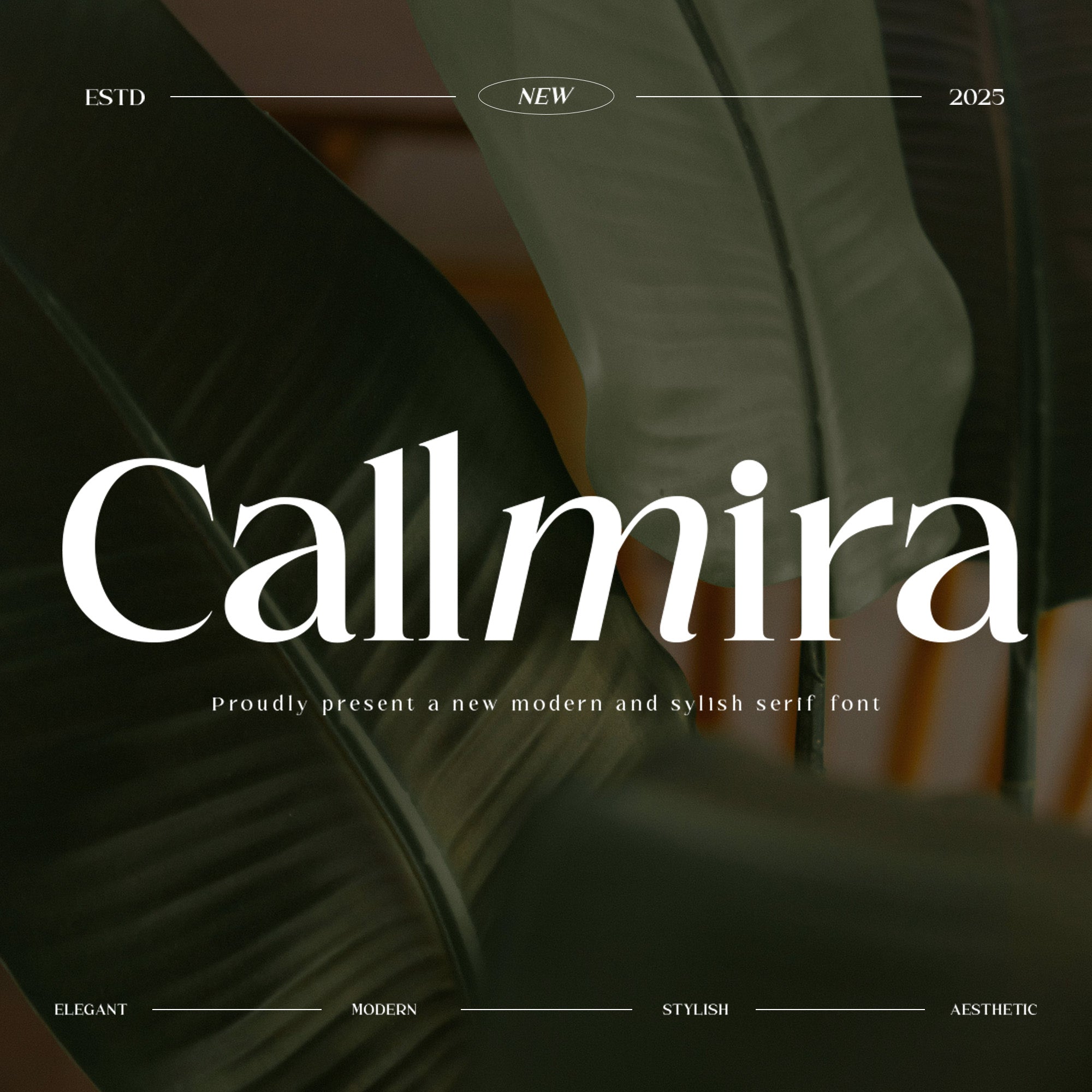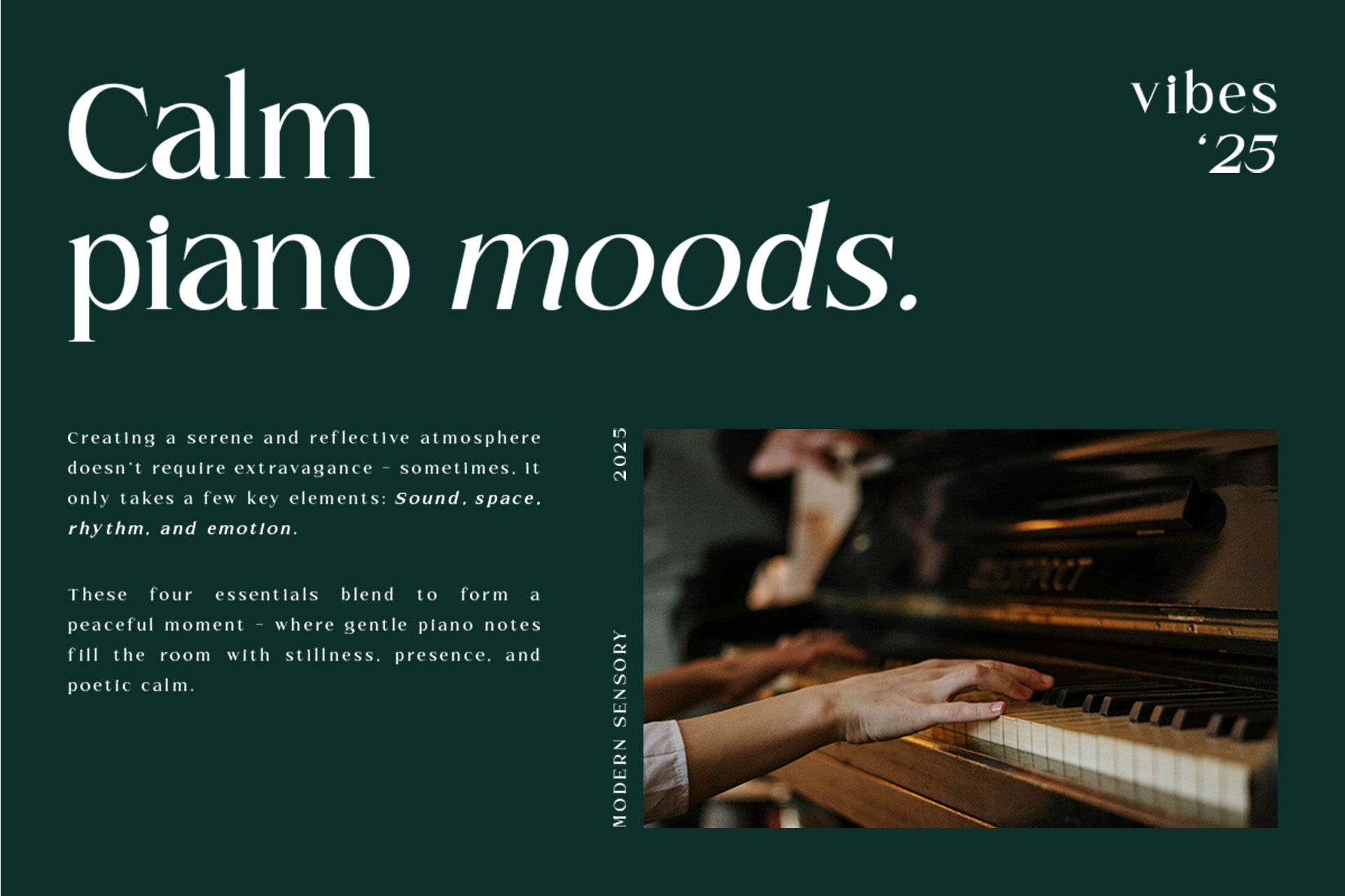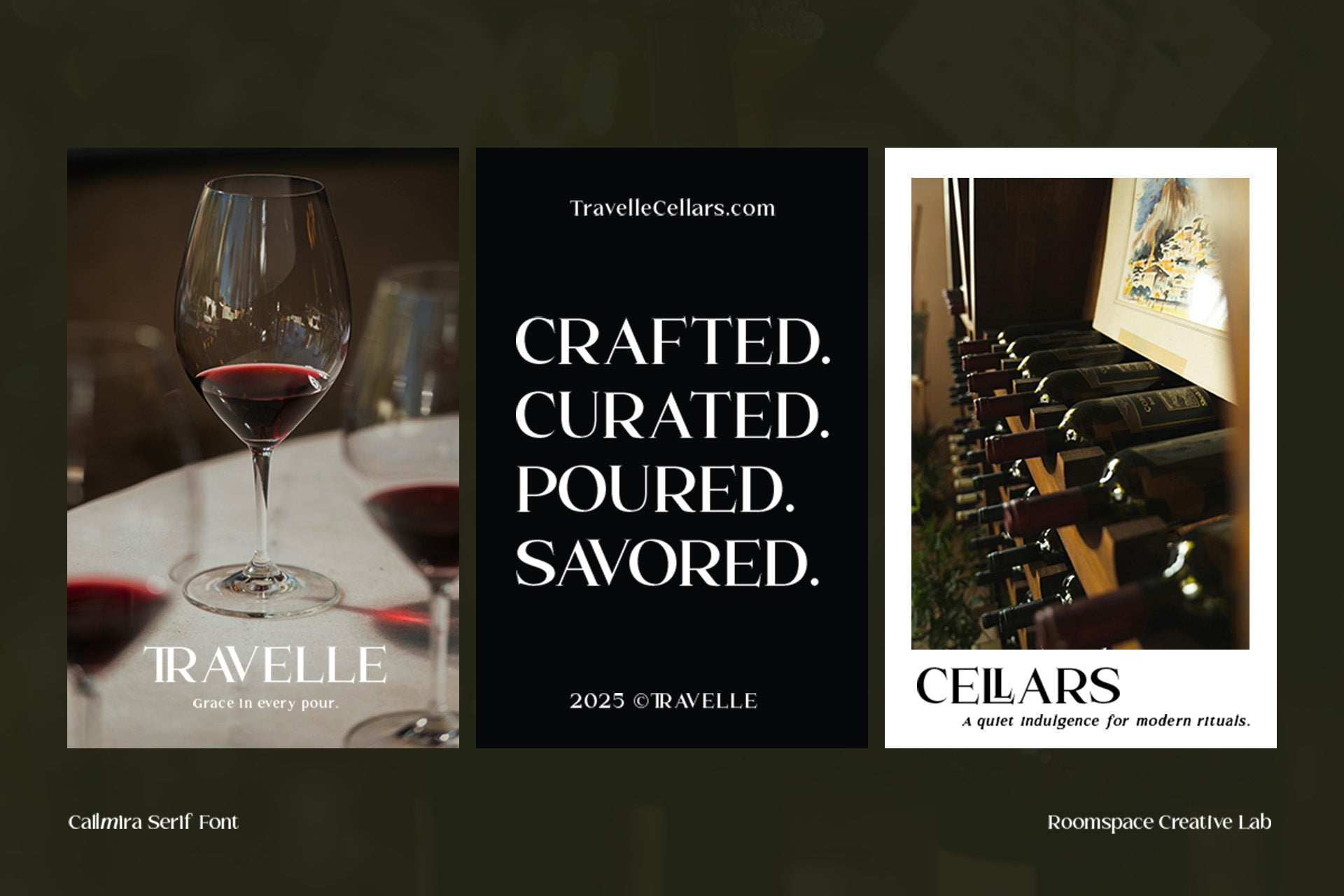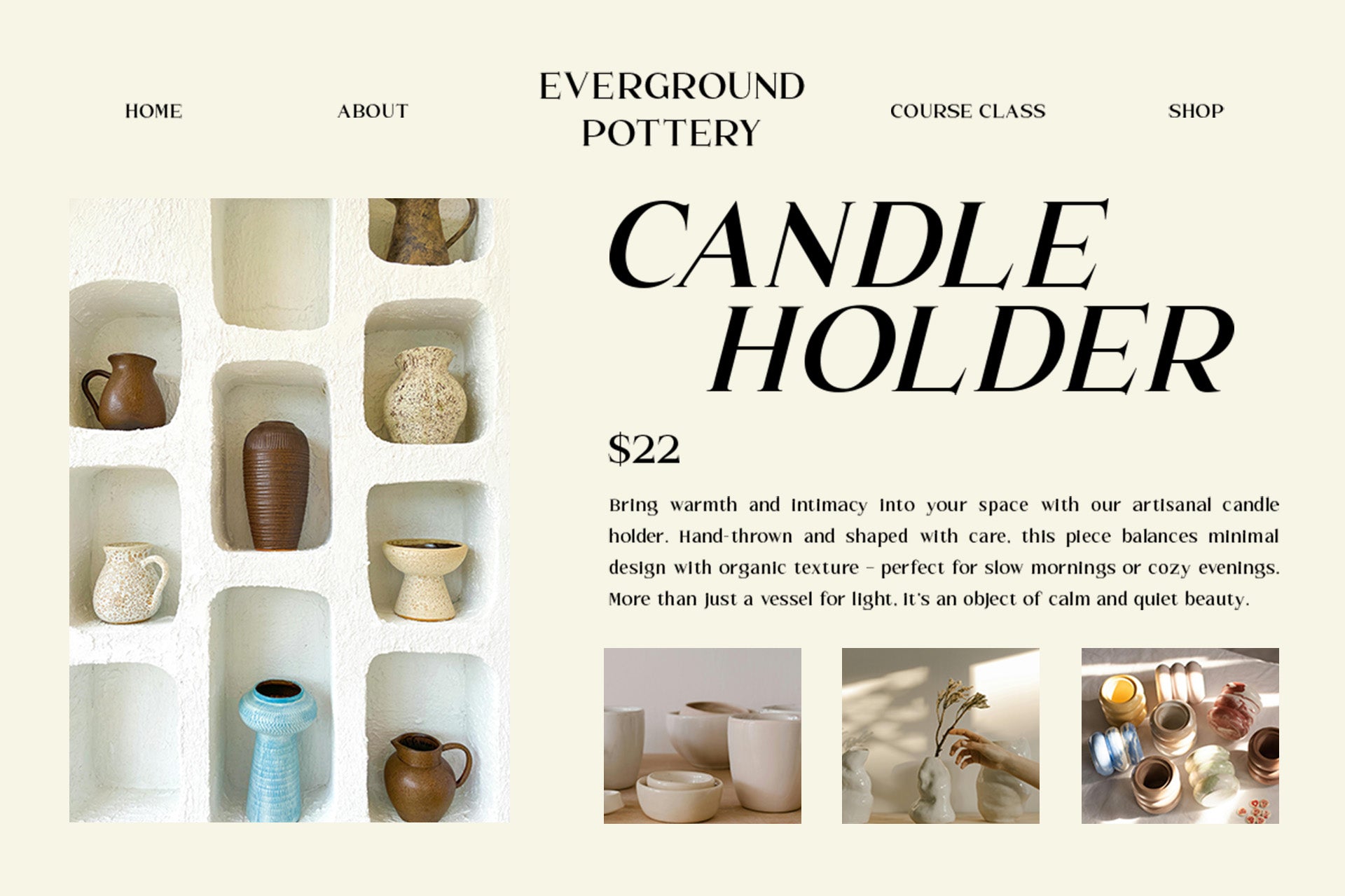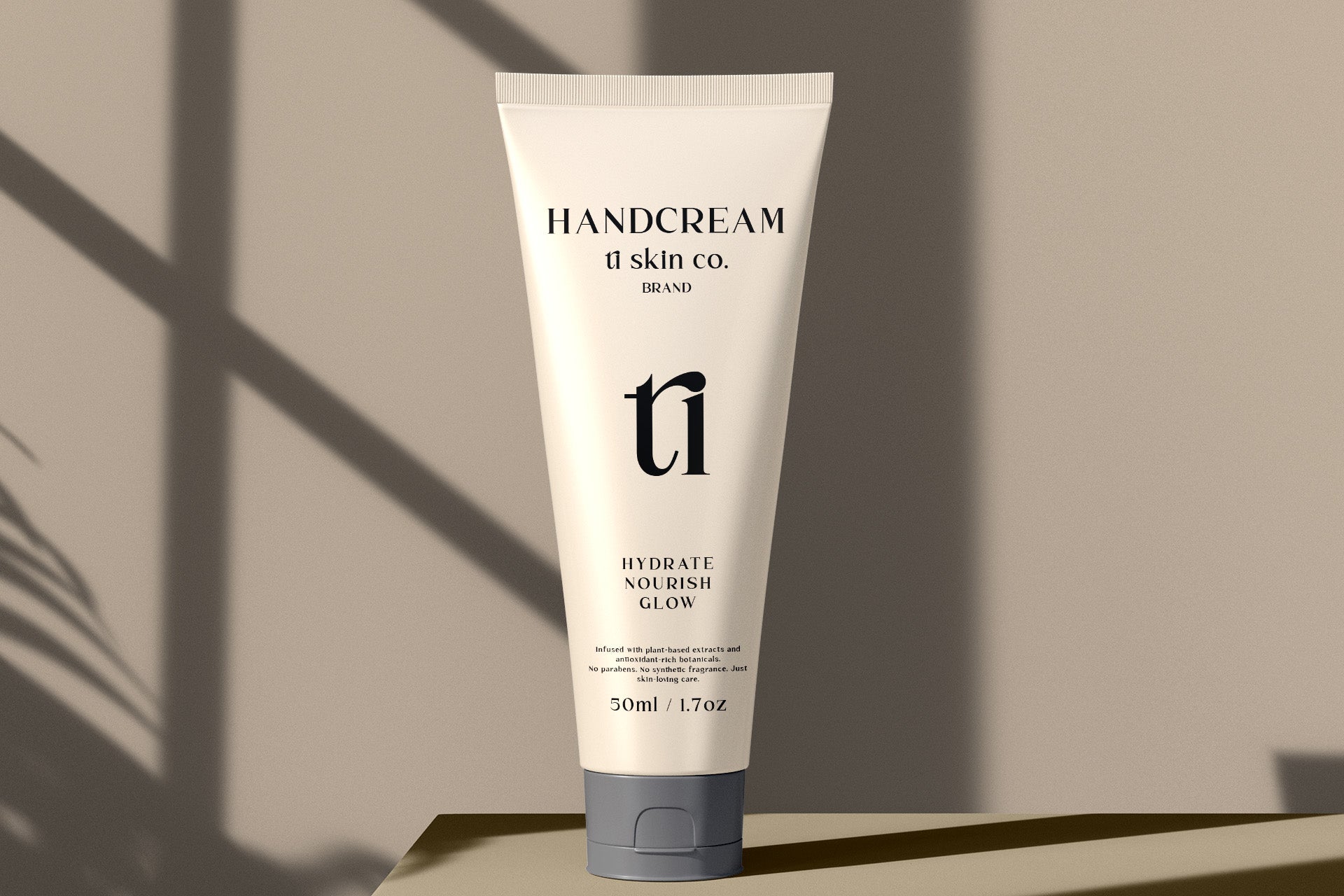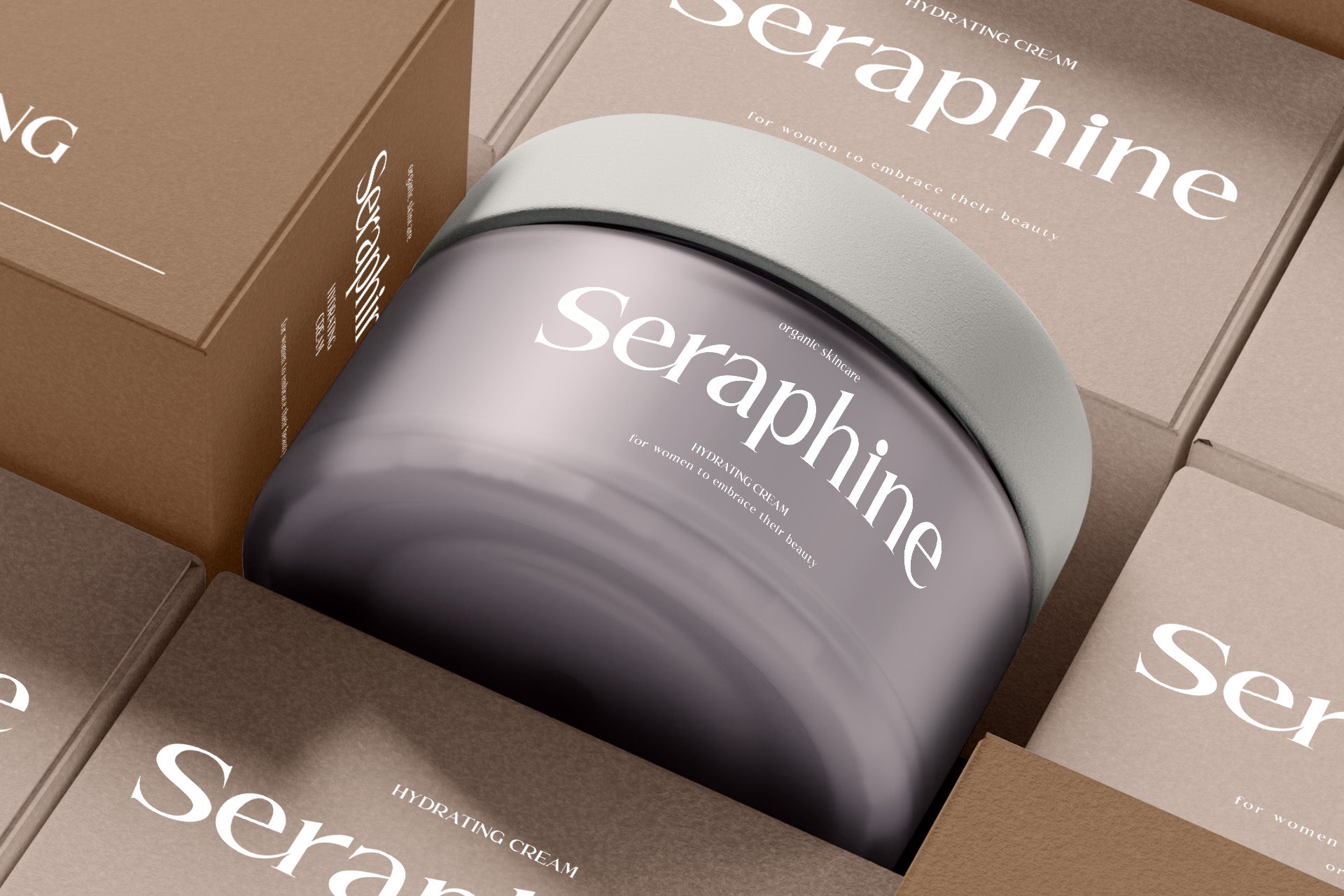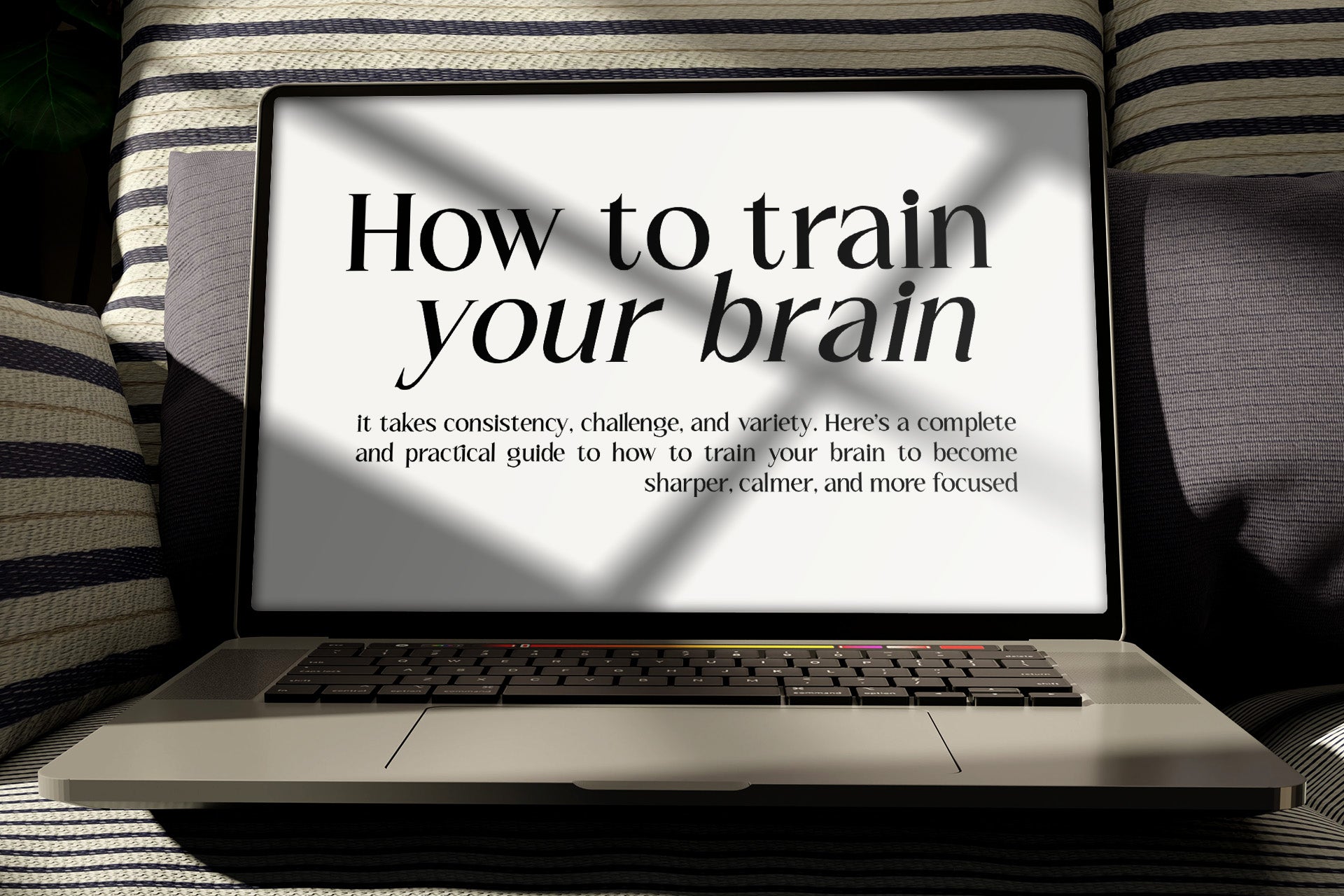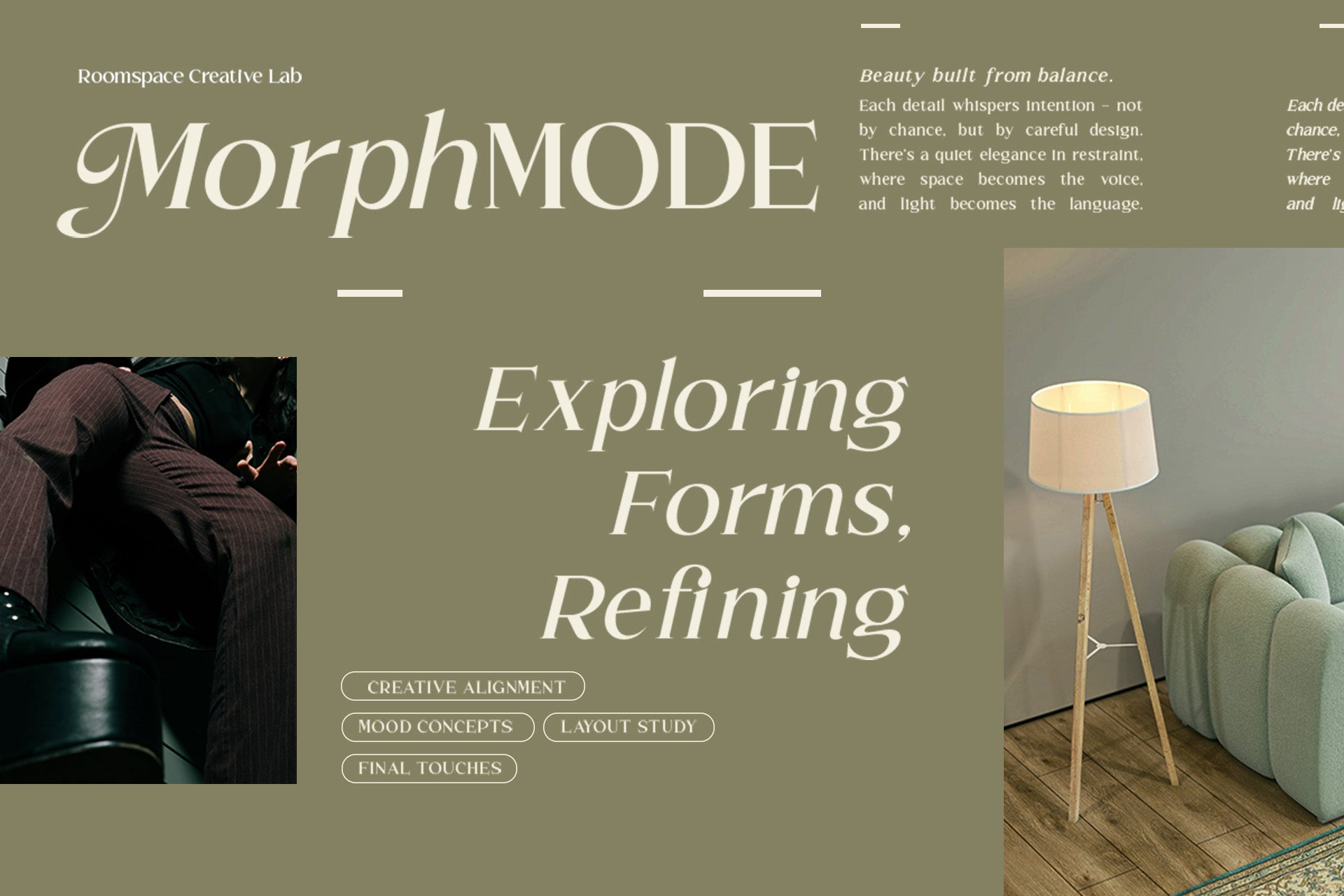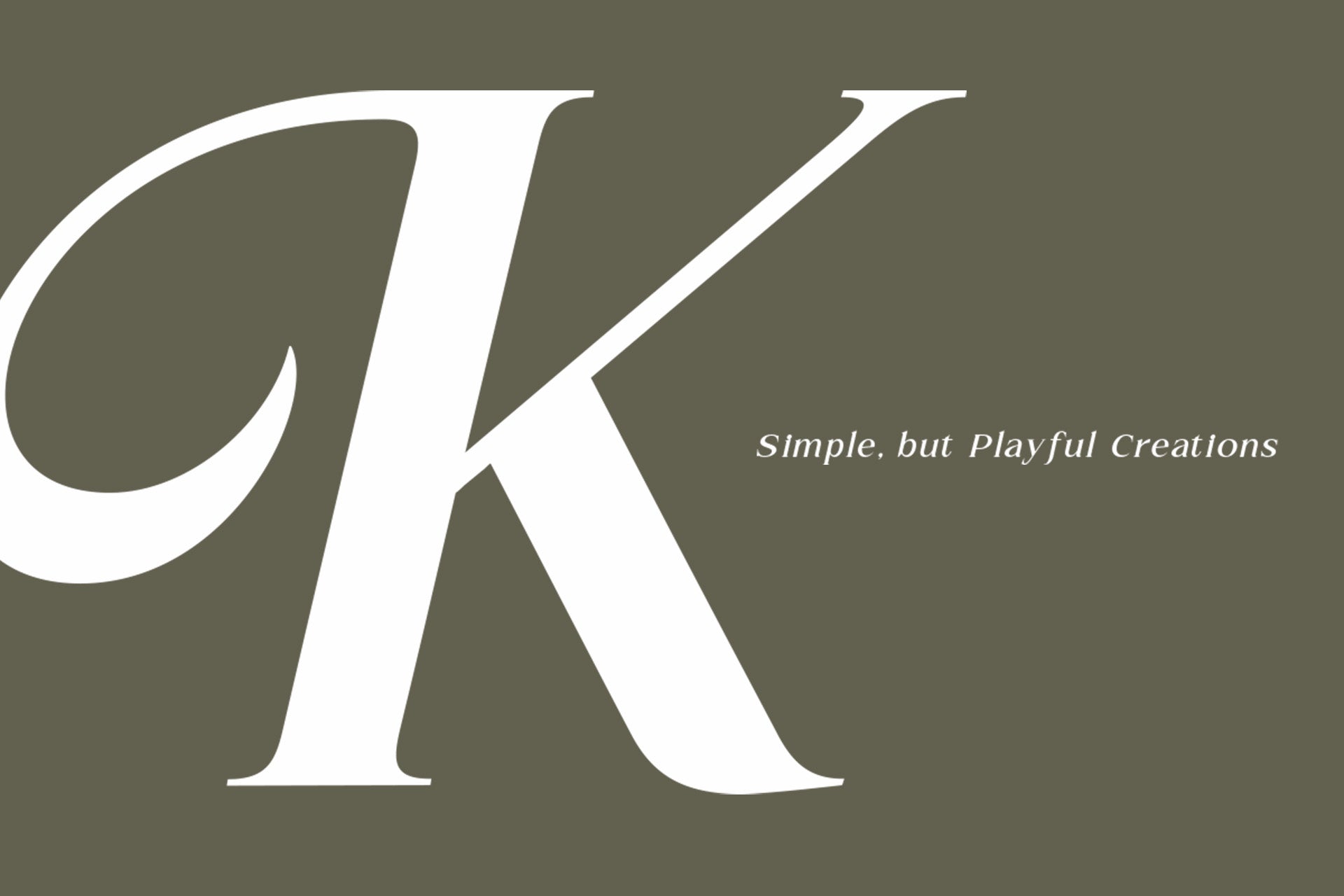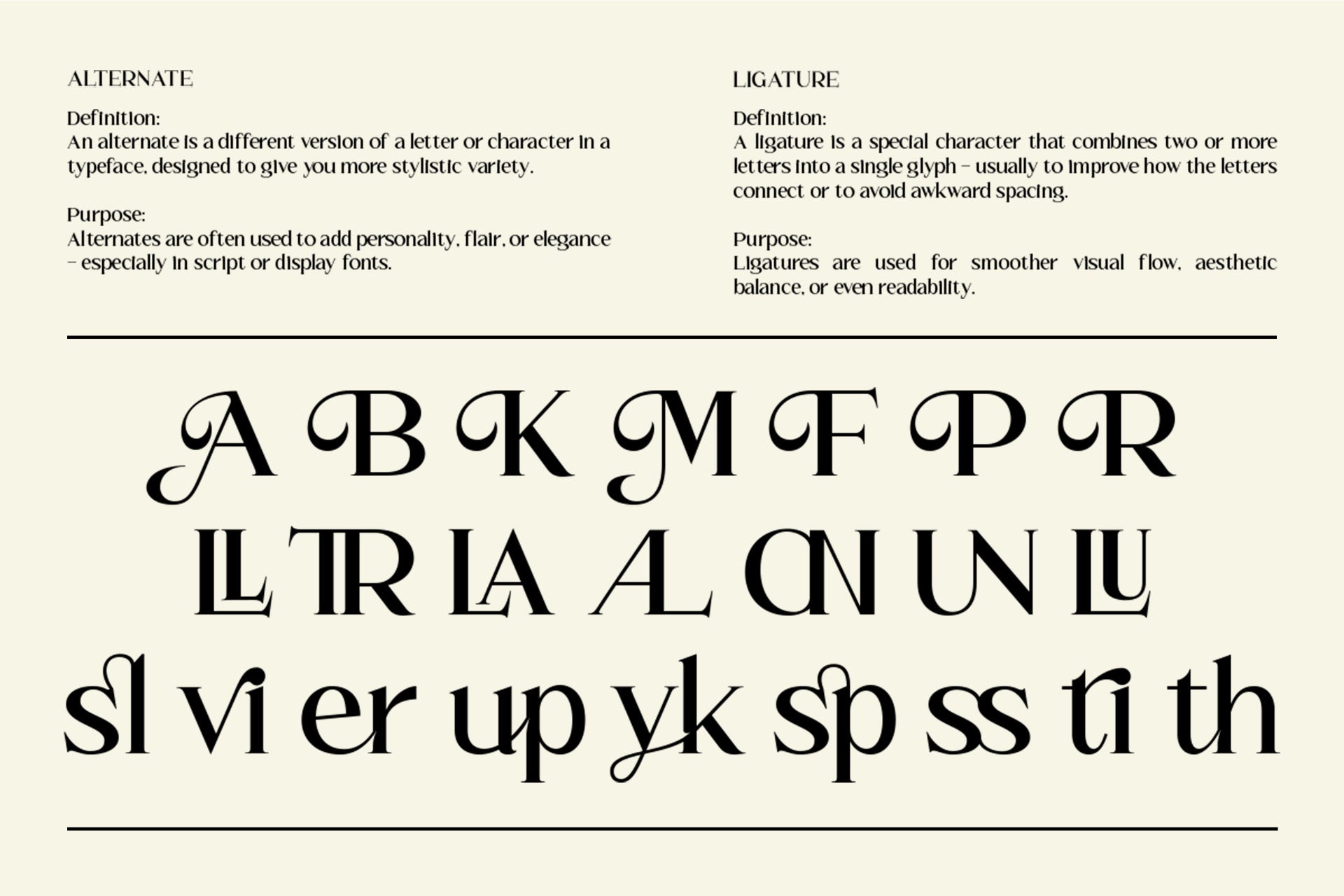
Callmira — Minimal Modern Serif Font
Callmira is a modern elegant serif font that embodies sophistication and balance. Designed with refined proportions and smooth contrast, it offers a perfect harmony between contemporary minimalism and timeless elegance. Callmira is ideal for designers who value subtle luxury and effortless style in their typography. Each letterform in Callmira is carefully crafted, featuring high-contrast strokes, soft curves, and crisp serifs that enhance its legibility and charm. With clean kerning, polished spacing, and multilingual support, this typeface maintains consistency across different platforms making it perfect for both digital and printed designs. Its versatility ensures every project feels elevated and cohesive. Perfect for luxury branding, editorial layouts, wedding invitations, packaging, and fashion design, Callmira brings a sophisticated yet modern character to every visual composition. Whether you’re creating a brand identity or a magazine headline, this font helps you make a lasting impression. Add Callmira to your collection today and let your designs shine with timeless beauty.
Callmira is a modern serif font designed with refined proportions and smooth contrast, offering a balance of contemporary minimalism and timeless elegance. It features high-contrast strokes, soft curves, and crisp serifs for enhanced legibility, along with clean kerning, polished spacing, and multilingual support, making it suitable for various digital and printed designs.